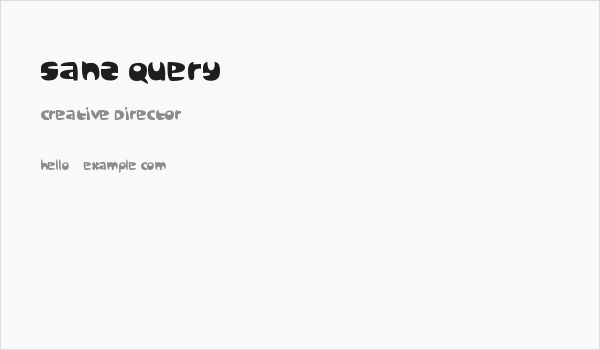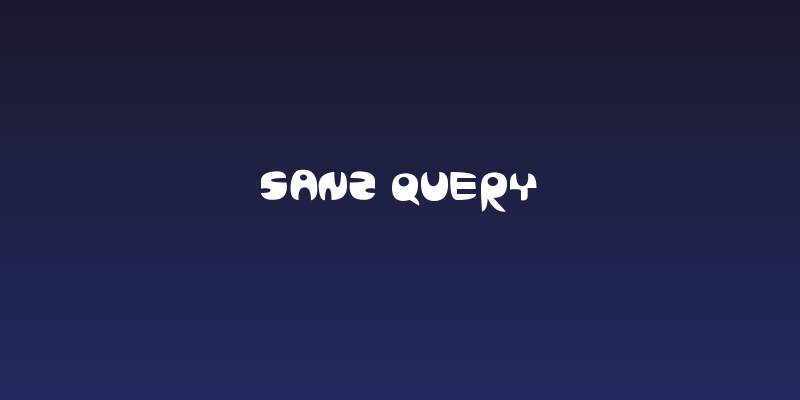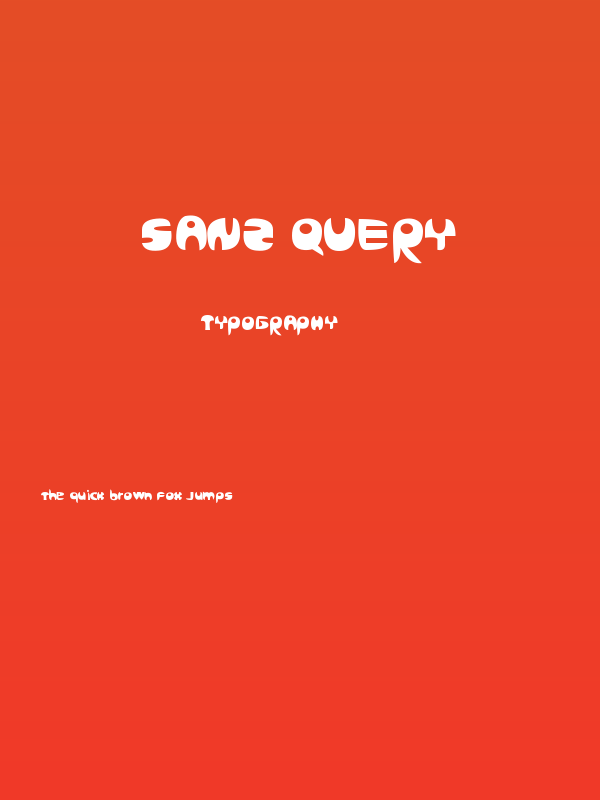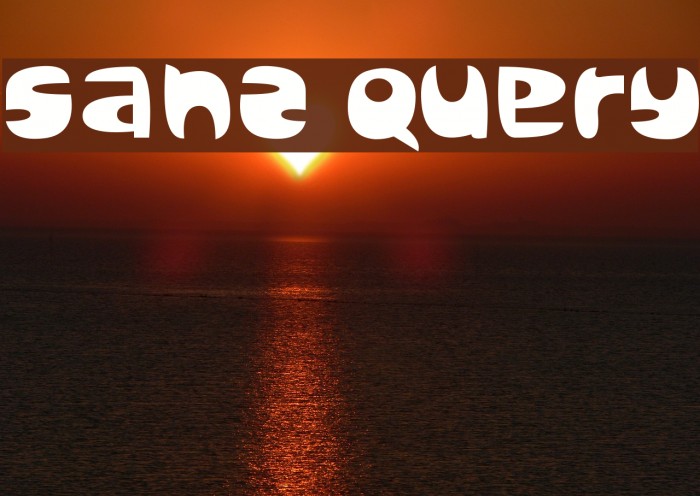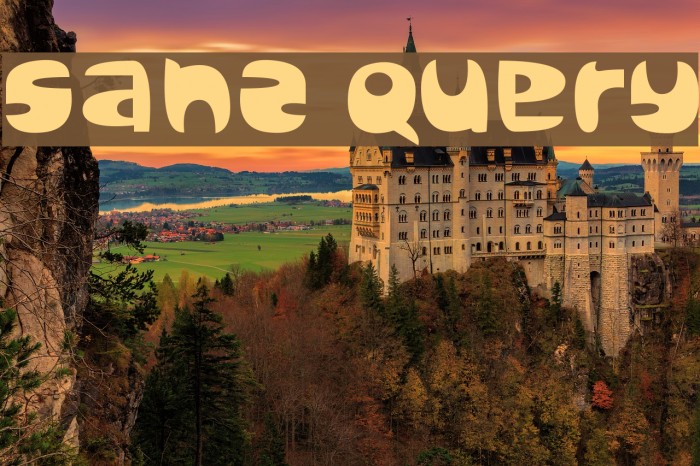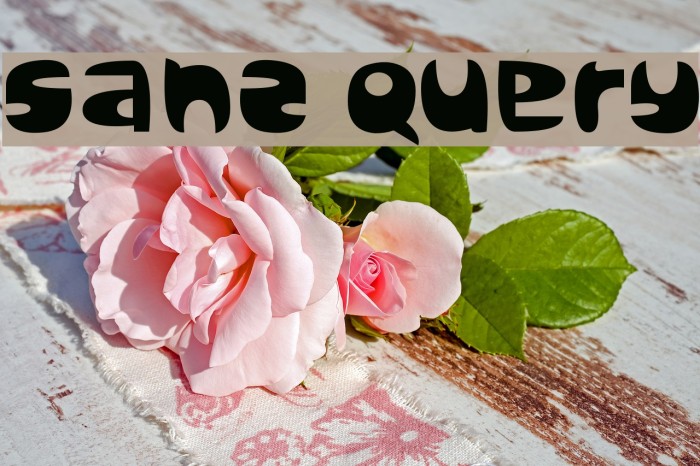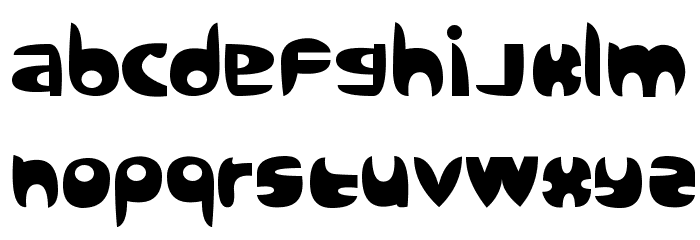
Sanz Query Font
Sanz Query Description
This font exhibits a bold and playful style with a unique, rounded appearance. The characters are characterized by their thick, consistent strokes and a whimsical design that incorporates both smooth curves and sharp angles. The uppercase and lowercase letters maintain a cohesive look, with a slightly condensed form that adds to its distinctive charm. The numbers and special characters follow the same playful aesthetic, making them easily recognizable and visually appealing. This font's boldness and unique style make it stand out, perfect for creative and engaging designs.
| Overall Style | Playful, Modern |
| Proposed Projects | Ideal for children's books, playful branding, posters, and creative design projects. |